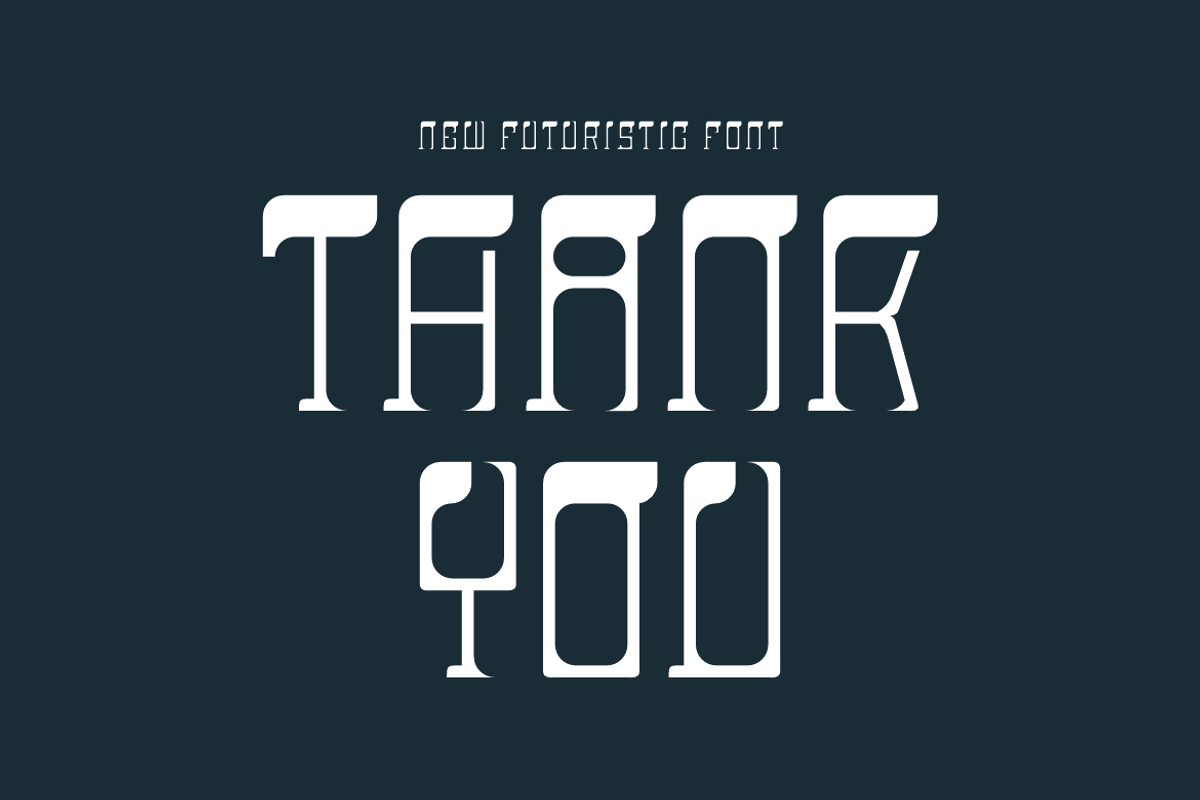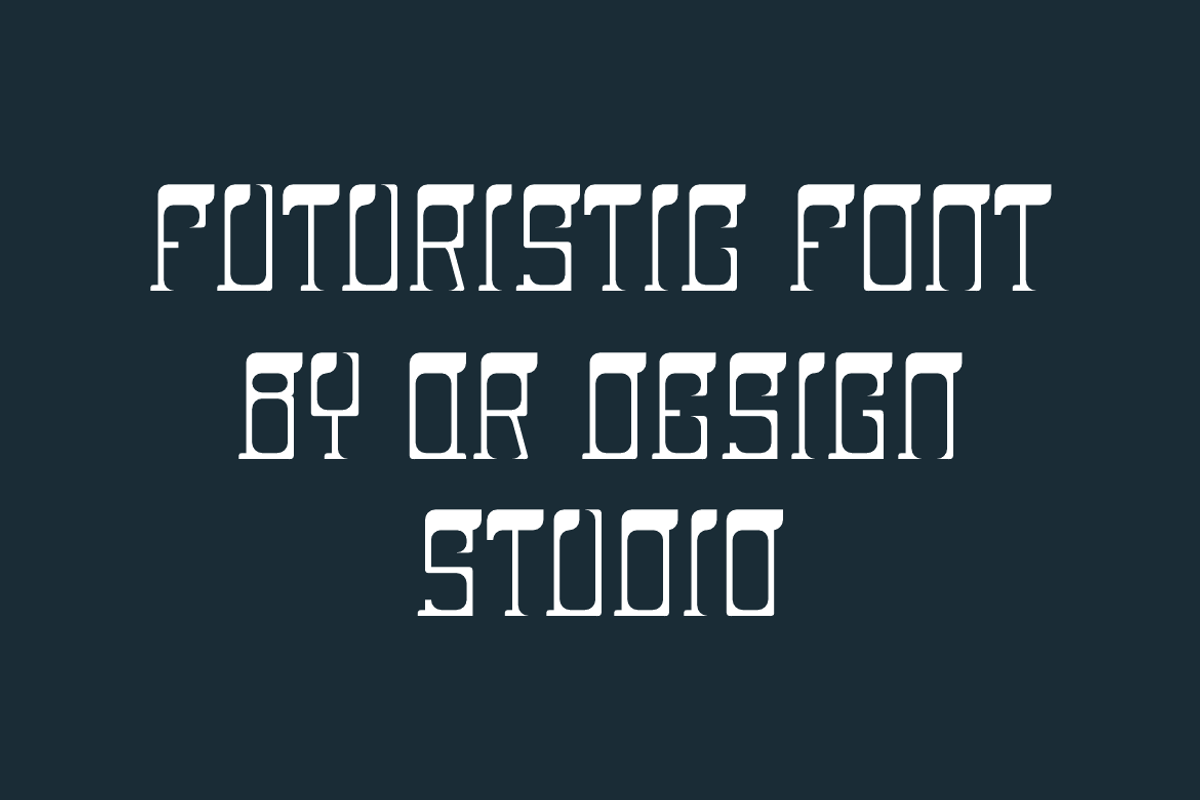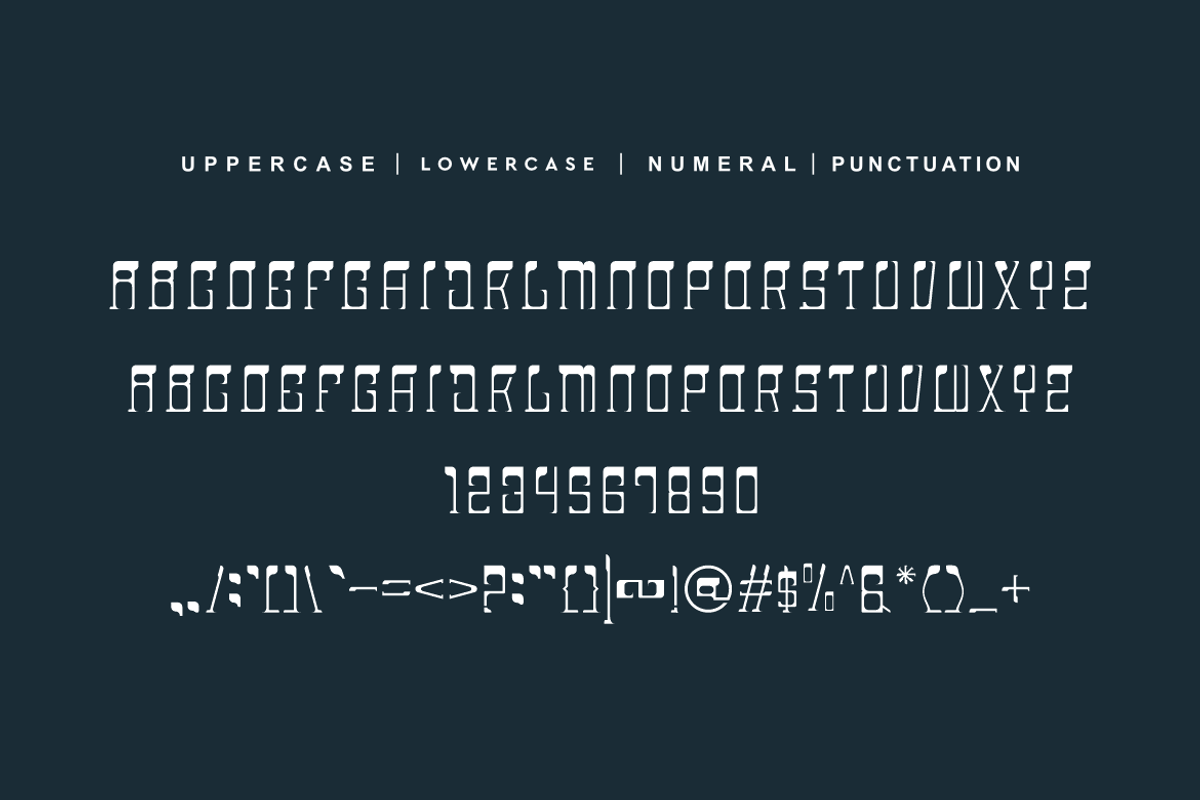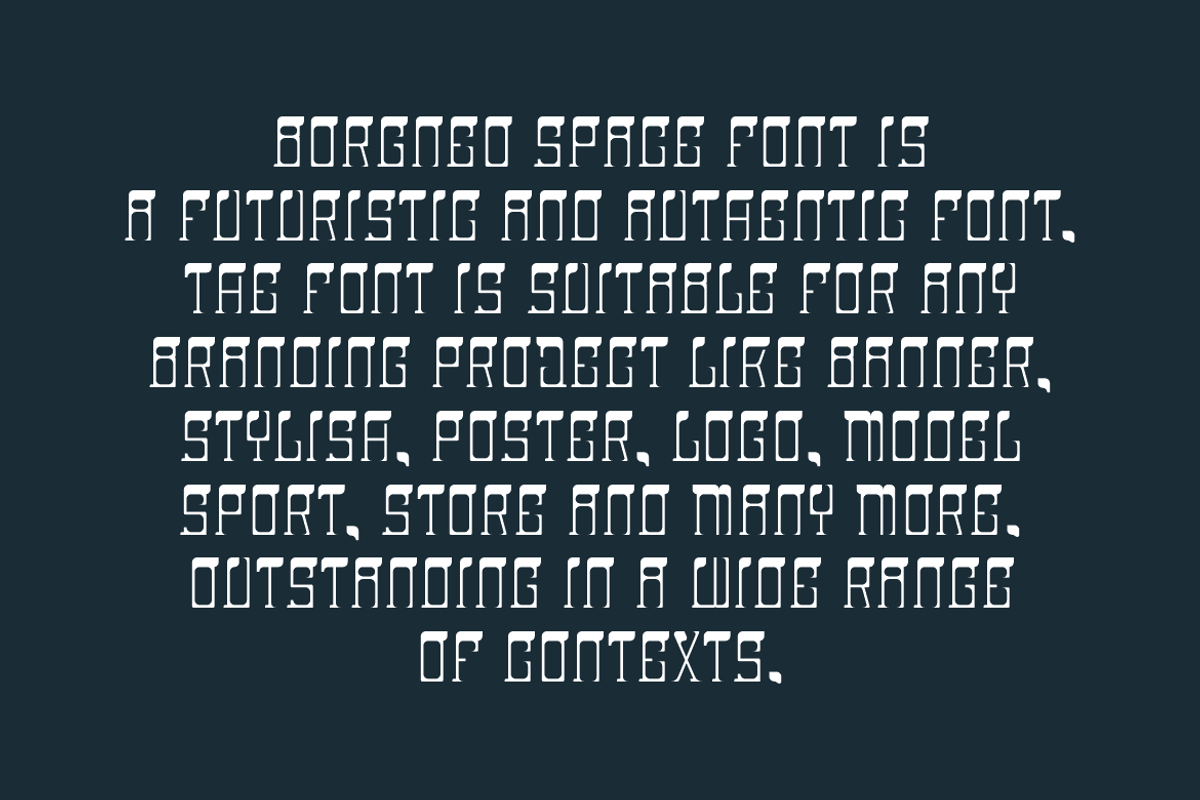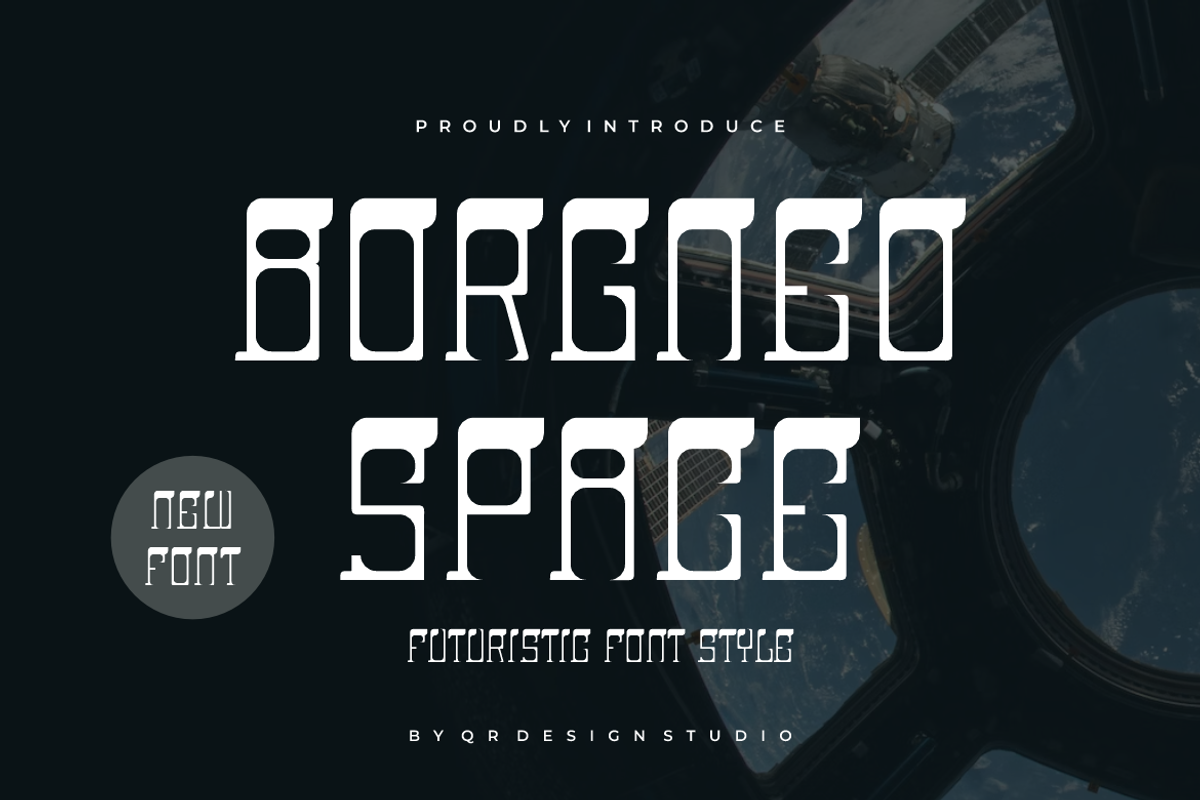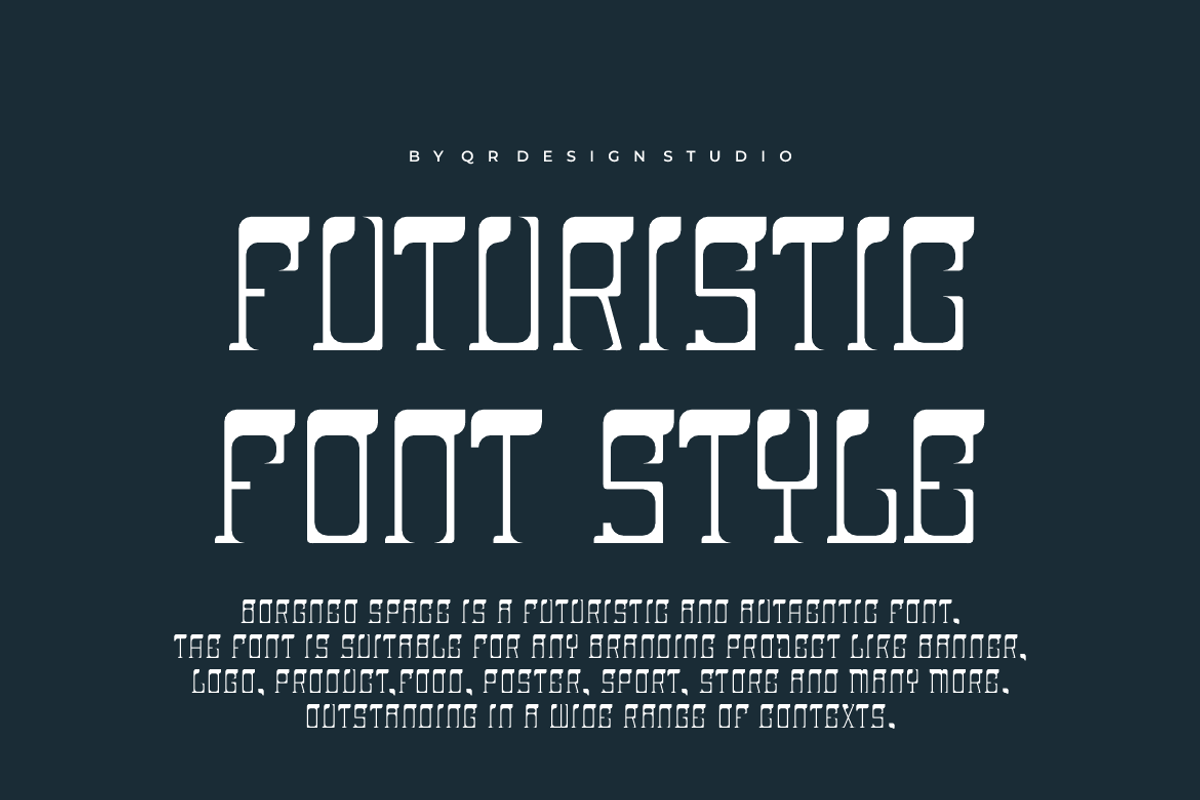
Borgneo Space - Futuristic Font
Borgneo Space - Futuristic Font is a futuristic and authentic font. The font is suitable for any branding project like poster, logo, sport, and many more. Outstanding in a wide range of contexts.